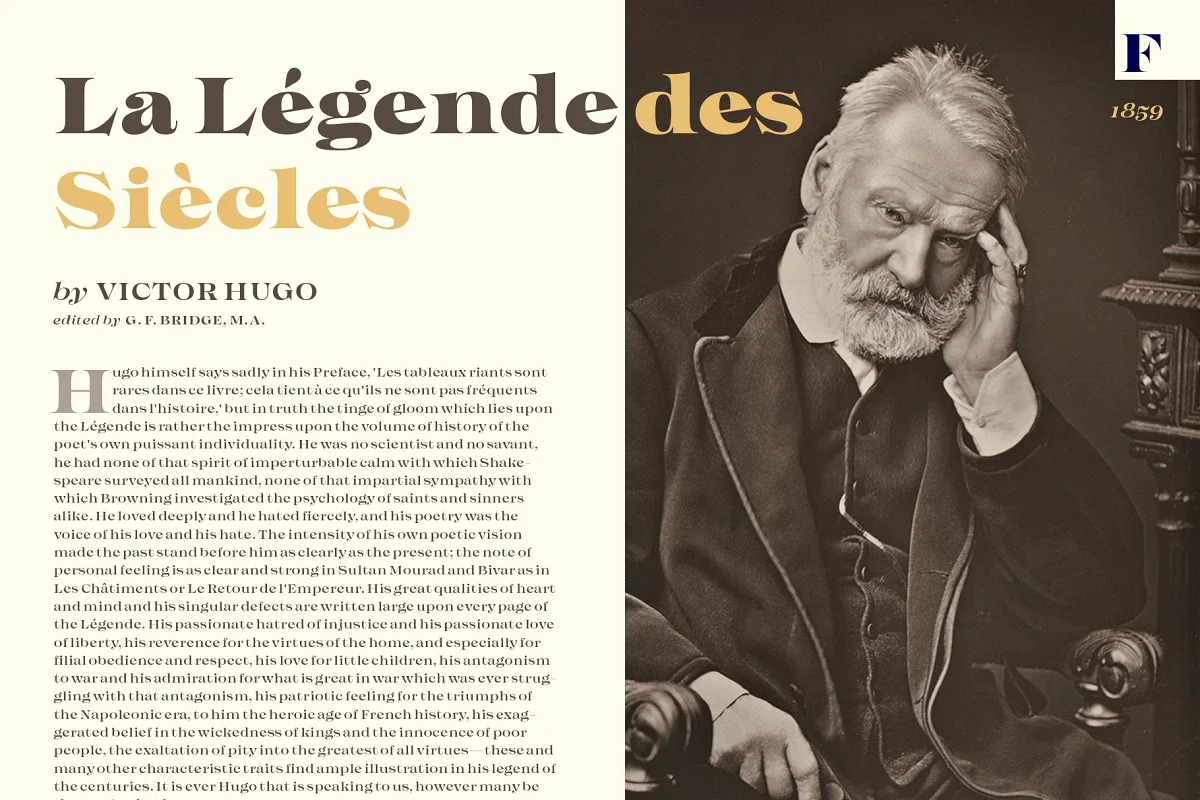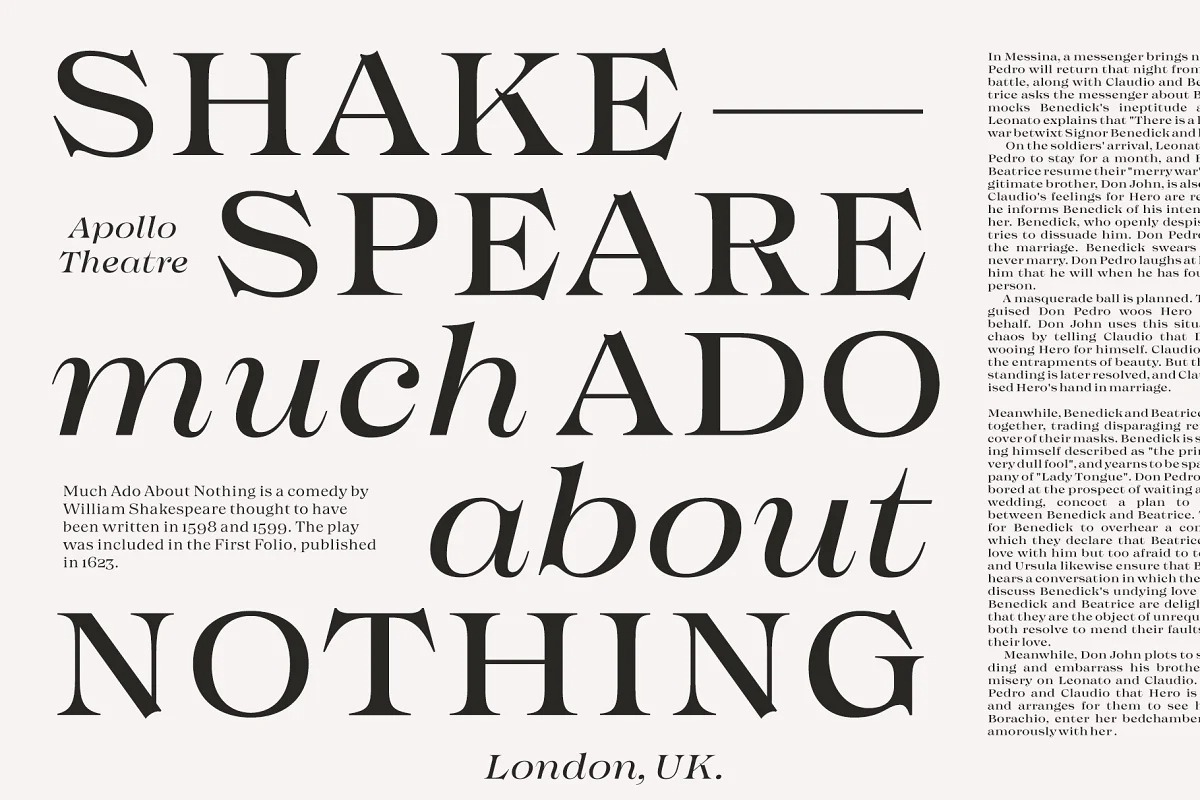
Imagist Serif Font
It’s a stylish serif font with subtle curves and playful proportions. It’s designed and shared by Fenotype. Imagist is a lively and decorative serif typeface with prominent features that appear especially in the letters K, R, M, N, W, V, k, w, v and y. Powerful ball terminals also bring recognizable attraction. Imagist contains six weights and corresponding Italics. Italics have a cursive-style letter s for as Stylistic Alternate. Old Style Numerals and Small Caps can be found in all cuts.